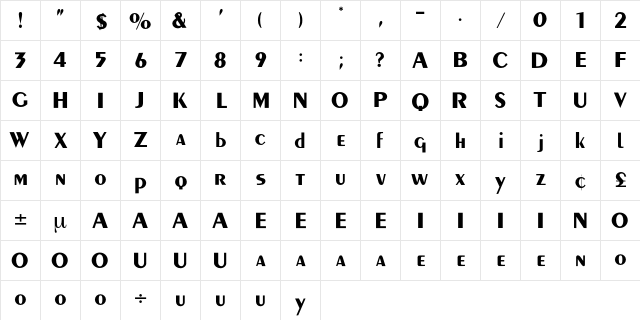
Alberta Regular
Design Context for Alberta Typeface
Alberta takes a measured approach to typography — its balanced proportions and neutral character make it a reliable workhorse for both digital and print work.